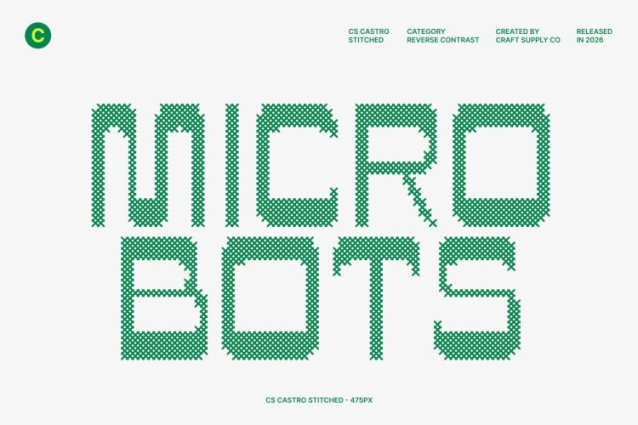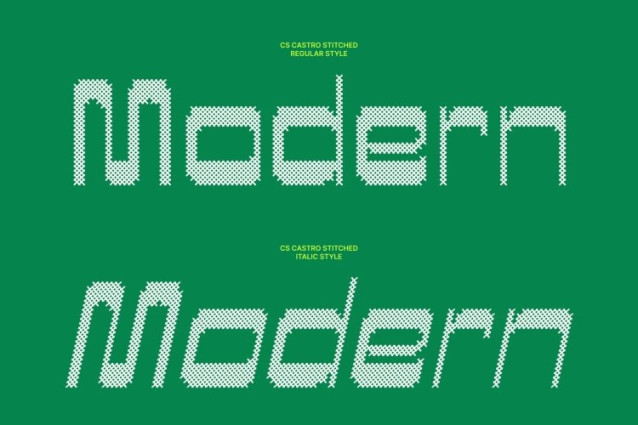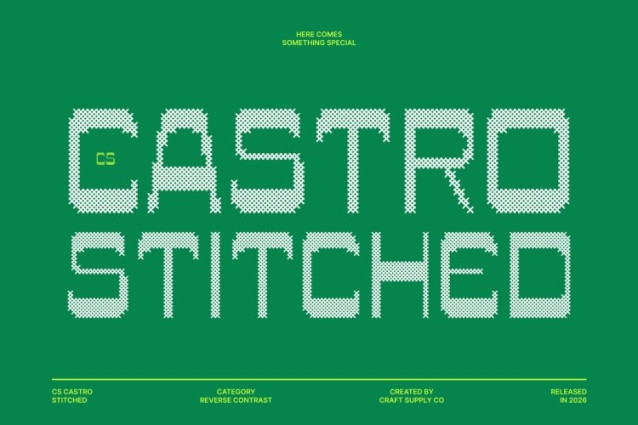
CS Castro Stitched Font
CS Castro Stitched Font – This is a modern sans-serif font that blends clean contemporary construction with the distinctive charm of reverse contrast. Instead of traditional weight distribution, the horizontal strokes appear heavier while the vertical strokes remain lighter, creating a striking and unconventional rhythm. The stitched texture adds a handcrafted dimension, giving the font a tactile and artistic personality that enhances its visual impact.
Retro Spirit with a Handmade Twist
Inspired by vintage graphics and mid-century typography, this font captures nostalgic energy while staying firmly modern. The minimalist sans-serif structure keeps the font clean and versatile, while the stitched detailing introduces warmth and character. This balance creates a retro aesthetic that feels fresh, expressive, and uniquely crafted.
Distinctive Texture and Memorable Personality
The stitched effect subtly mimics embroidery or sewn fabric, adding depth and texture without overwhelming readability. This handcrafted finish softens the geometric structure and gives the typeface a friendly, artistic presence, making it feel both playful and refined.
Perfect for Branding, Posters, and Creative Promotion
This font shines in branding, posters, packaging, and promotional graphics that require a bold and memorable typographic voice. Its fusion of reverse contrast, retro inspiration, and stitched texture ensures designs stand out with personality, originality, and a confident contemporary edge.